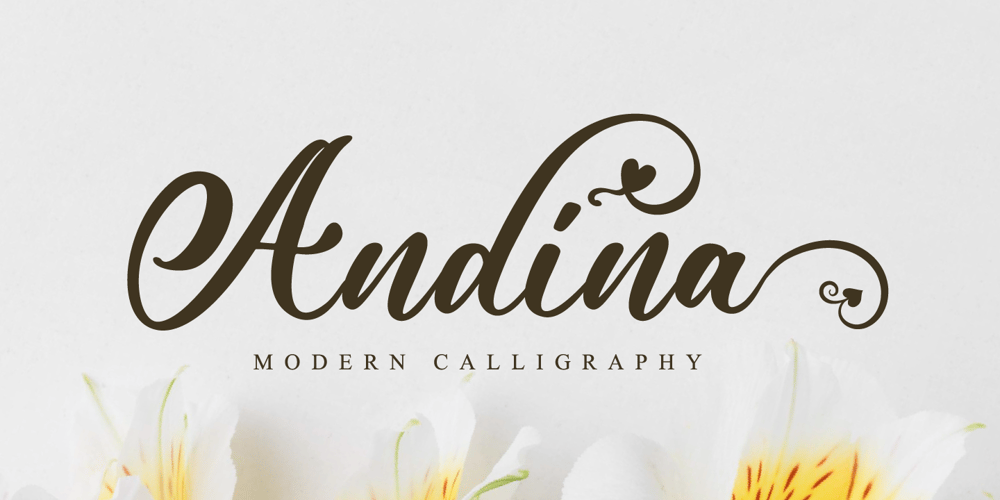
Andina Font Family was designed by Novia Himatunnisa and published by Nissa Nana. Andina contains 1 styles and family package options. Andina is an exquisite handwritten font, masterfully designed to become a true favorite. It maintains its classy calligraphic influences while feeling contemporary and fresh. This font is PUA encoded which means you can access all of the glyphs and swashes with ease!